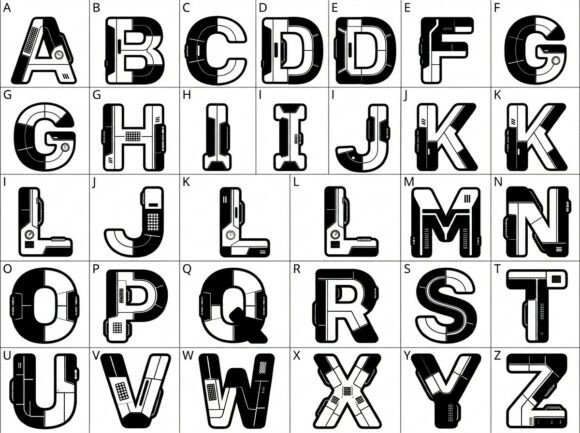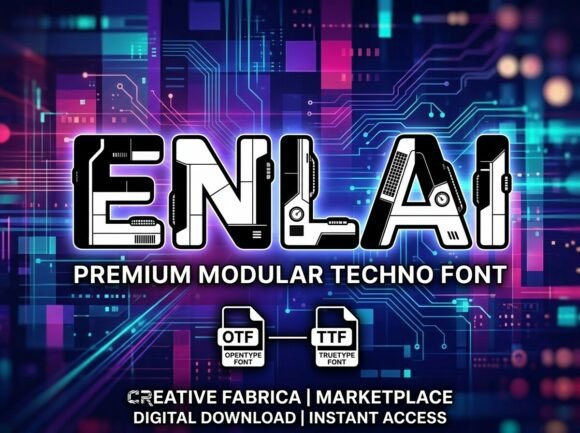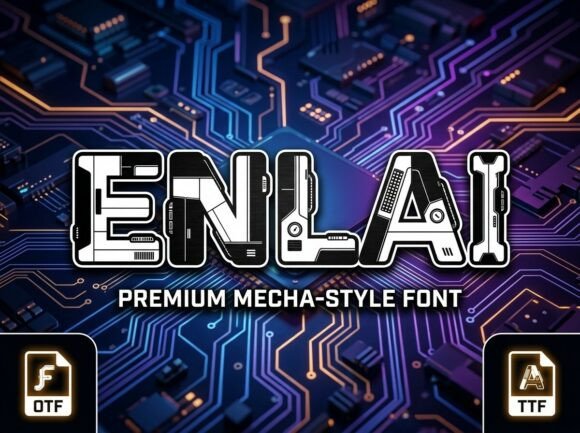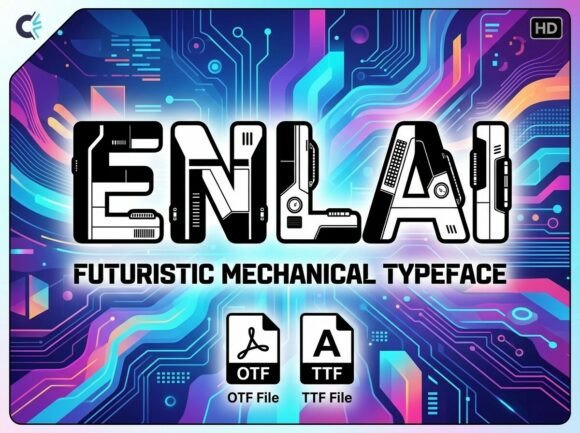
Introducing Enlai Font: A Stunning Decorative Display Font
Are you tired of using the same old fonts for your creative projects? Do you want to make a statement with your designs and stand out from the crowd? Look no further than Enlai Font, a unique and artistic display font that’s sure to turn heads. In this article, we’ll take a closer look at what makes Enlai Font special and how it can elevate your designs to the next level.
A Font that’s Truly One-of-a-Kind
Enlai Font is a decorative display font that’s designed to be the center of attention. With its unique artistic elements and strong visual personality, this font is perfect for creators who want to break away from the ordinary. Whether you’re working on a bold headline, artistic logo, or creative packaging, Enlai Font is versatile enough to make a lasting impression.
Before you make a purchase, it’s essential to note that Enlai Font is an ALL-CAPS (Uppercase Only) display typeface. This means that it does not include lowercase letters. However, this is by design, as Enlai Font is specifically created for high-impact headlines, logos, and decorative initials where every letter is a work of art.
Enlai Font is ideal for designers and crafters who want to add a touch of elegance and sophistication to their work. With its unique and artistic design, this font is perfect for:
- Bold Headlines: Make a statement with your headlines using Enlai Font’s bold and eye-catching design.
- Artistic Logos: Create a lasting impression with your logo using Enlai Font’s unique and artistic elements.
- Creative Packaging: Stand out on store shelves with Enlai Font’s bold and decorative design.
Tips for Using Enlai Font
- Use it sparingly: Enlai Font is a bold and eye-catching font, so use it sparingly to make a lasting impression.
- Experiment with colors and textures: Add an extra layer of depth to your design by experimenting with different colors and textures.
- Pair it with a simple font: Balance out Enlai Font’s bold design by pairing it with a simple font for body text.